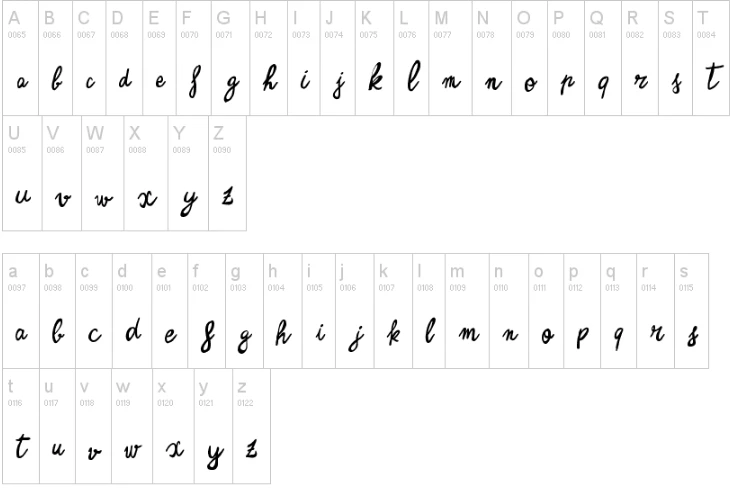
Zerocalcare Script Font
About The Font
Zerocalcare Script Font was created to replicate the handwriting style of Italian comic artist Michele Rech, who is better known by his pen name Zerocalcare. The font was specifically designed to be used as the branding for the 2016 edition of the Lucca Comics and Games festival. It has multiple variations like script bold, script, blackletter, and alternate double trouble version that gives a variety of different looks. The artist and folks at zetafonts created it as a free gift for the community.
The font was published by Zetafonts, an independent type studio based in Florence, Italy. Zetafonts was established in 2001 by Francesco Canovaro, Debora Manetti, and Cosimo Lorenzo Pancini, and it is known for creating unique and high-quality fonts for various uses. Cosimo Lorenzo Pancini was the designer of this font. They have many other popular fonts like Antipasto, Cocogoose, Aliens, and cows.
The Zerocalcare Script Font Free is appropriate for branding, logos, stationery, business cards, signs, flyers, brochures, websites, and applications. Weddings, fashion, shops, expensive real estate, healthcare, financial companies, and architects are good candidates for this font. It’s relaxed but sophisticated, light and airy.
As a script font, it is is also well-suited for use in a wide range of design projects, including invitations, posters, packaging, and more. It is available for purchase from the Zetafonts website, where it can be licensed for use in a variety of projects.
When was Zerocalcare Script font released?
Ans: The font was specifically designed to be used as the branding for the 2016 edition of the Lucca Comics and Games festival.
Who designed the Zerocalcare Script font?
Ans: Cosimo Lorenzo Pancini, a member of Zetafonts, is the designer of this font.